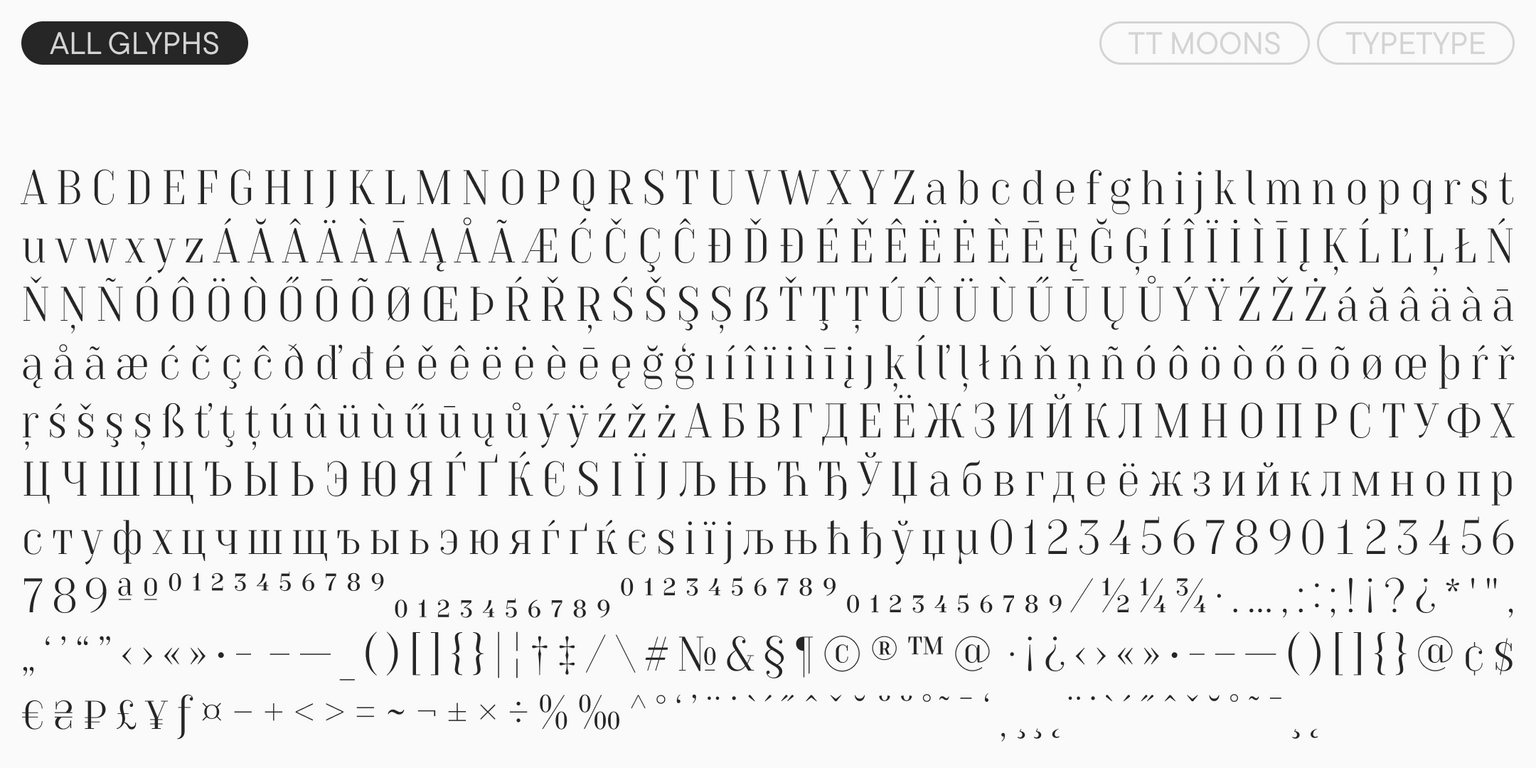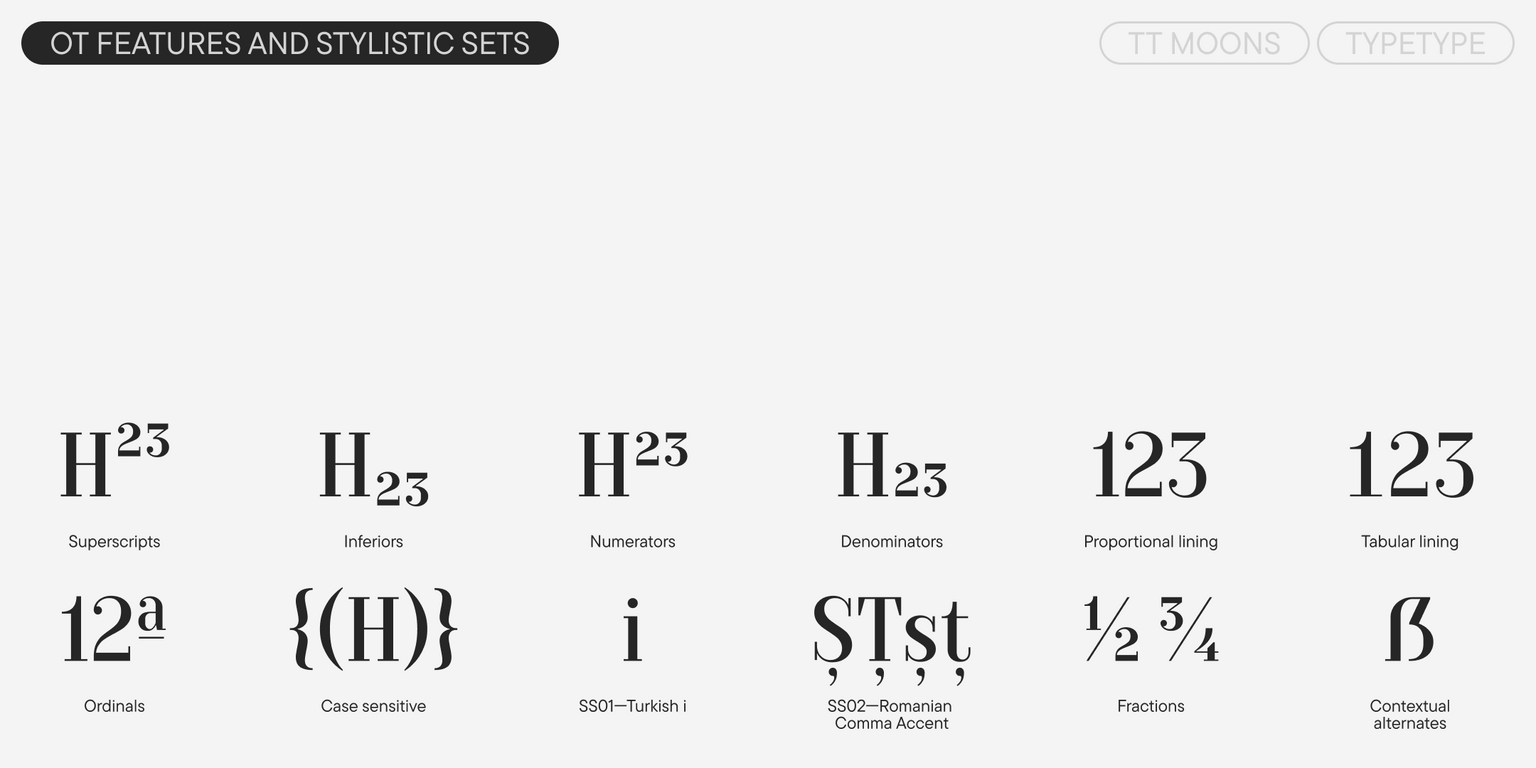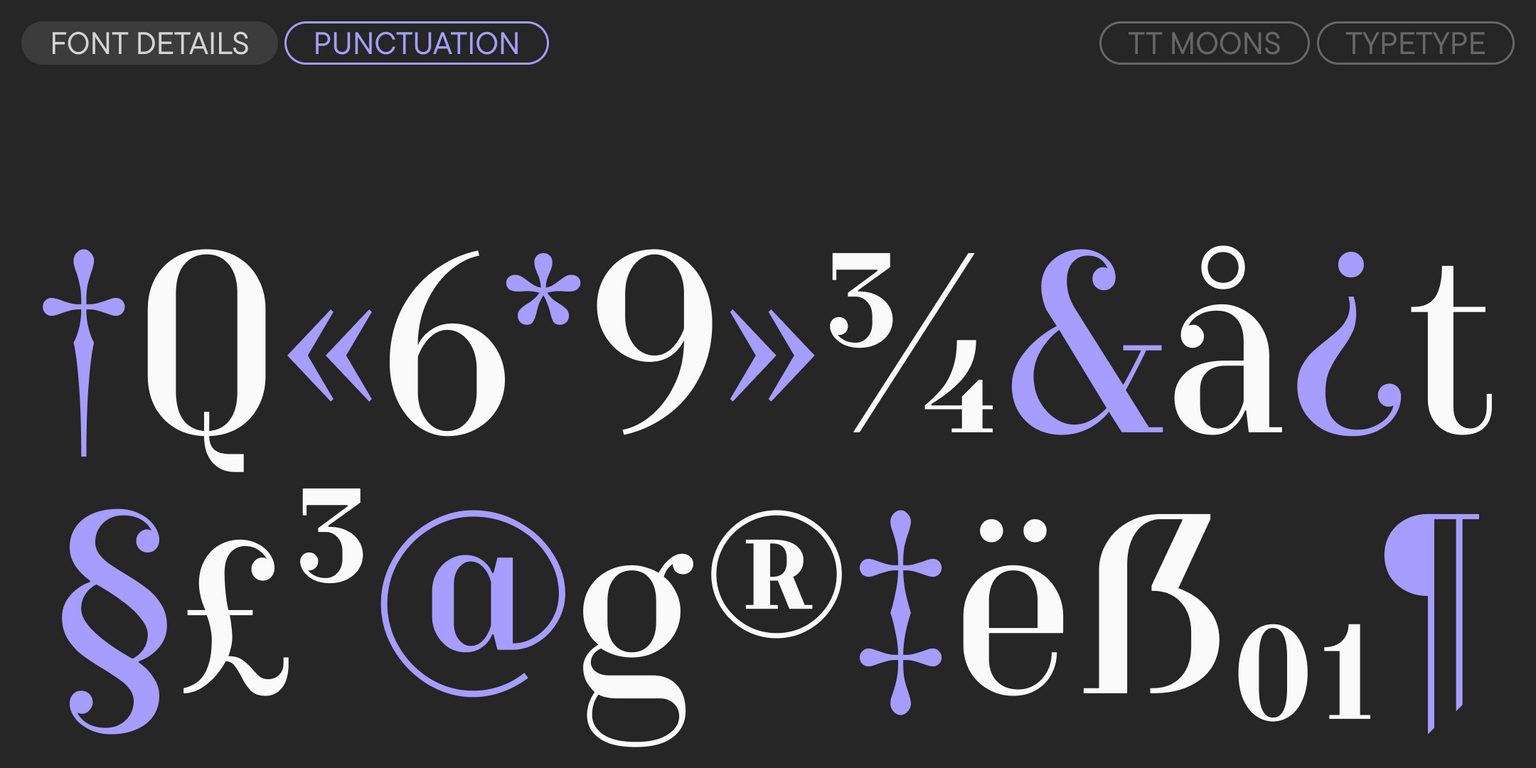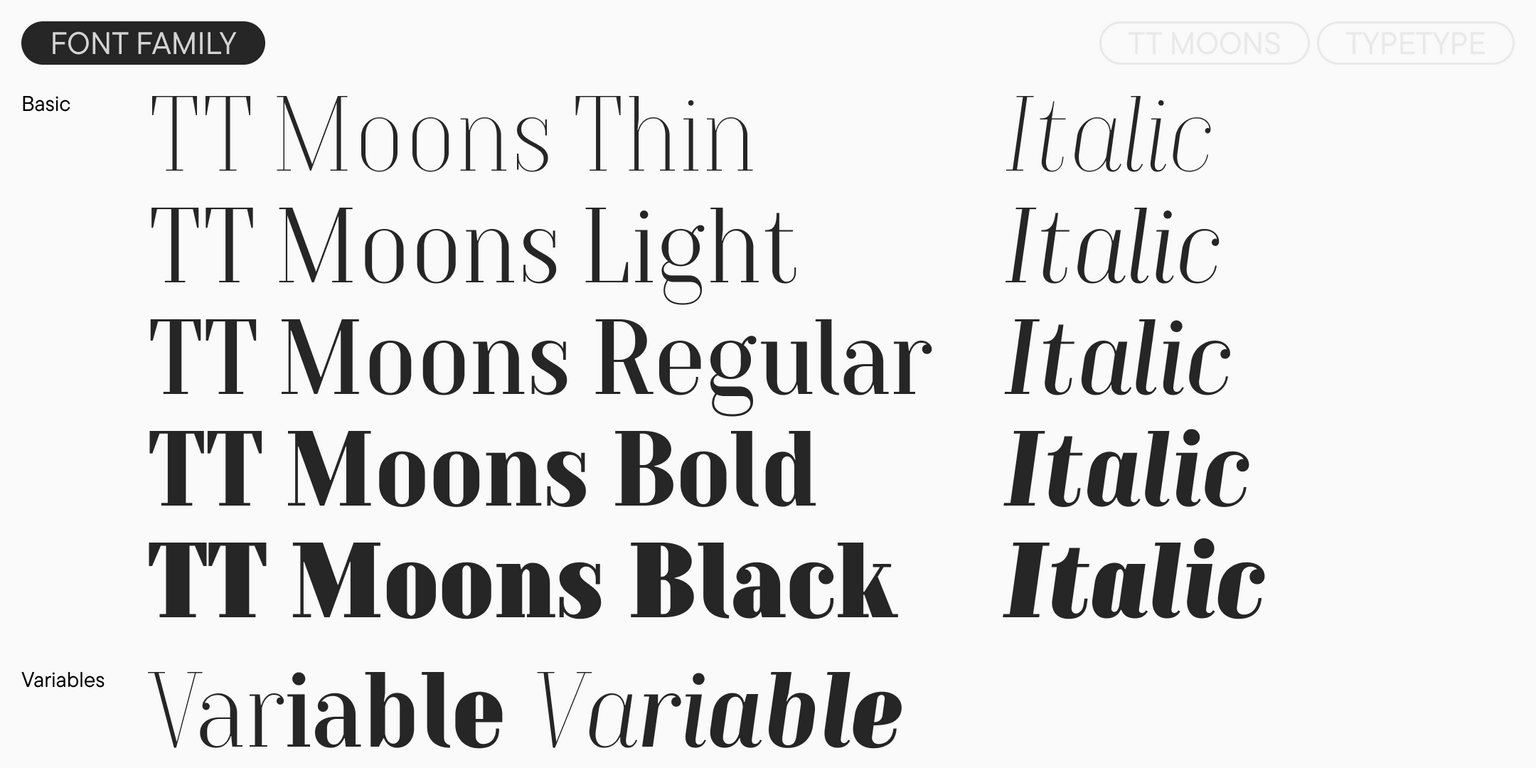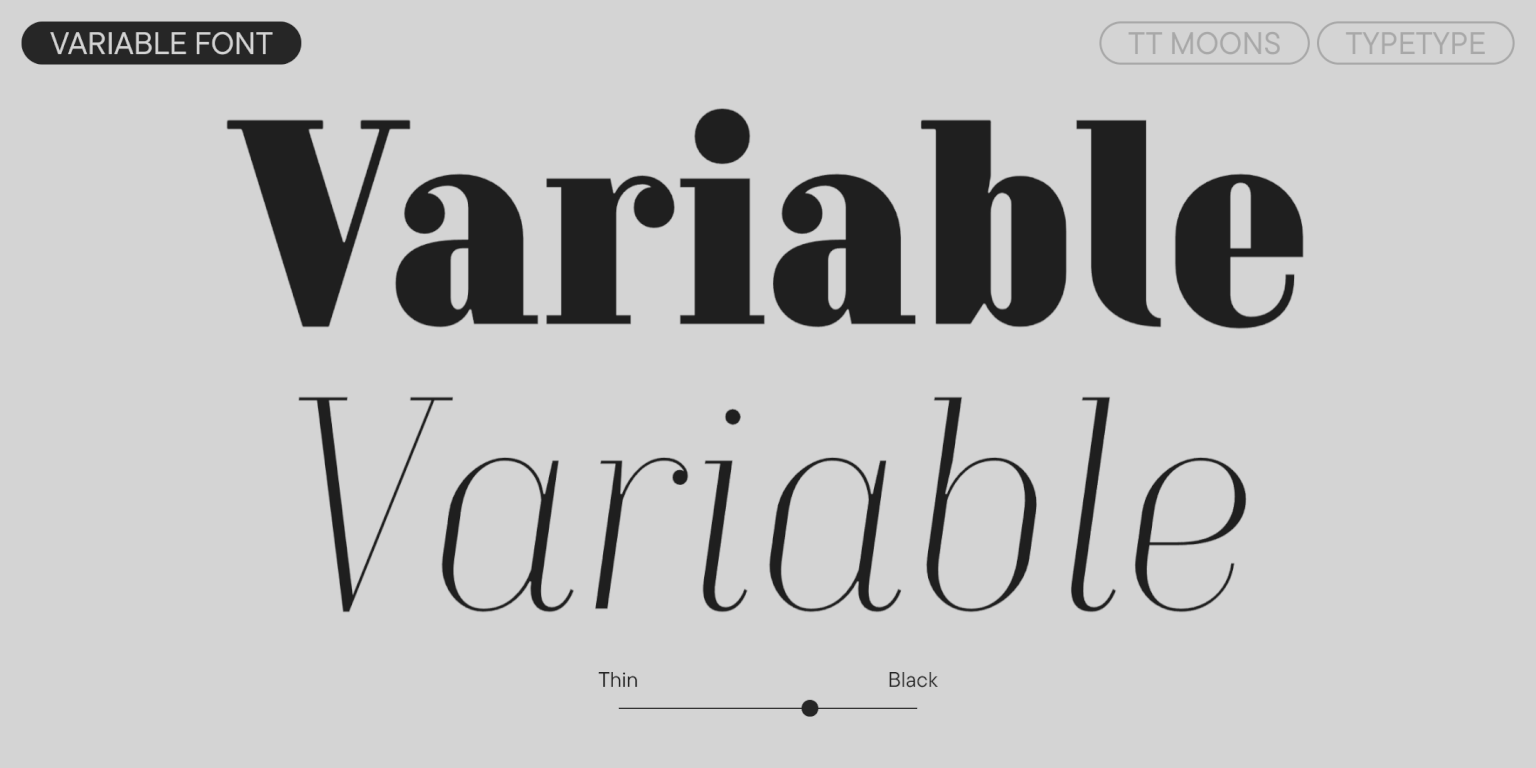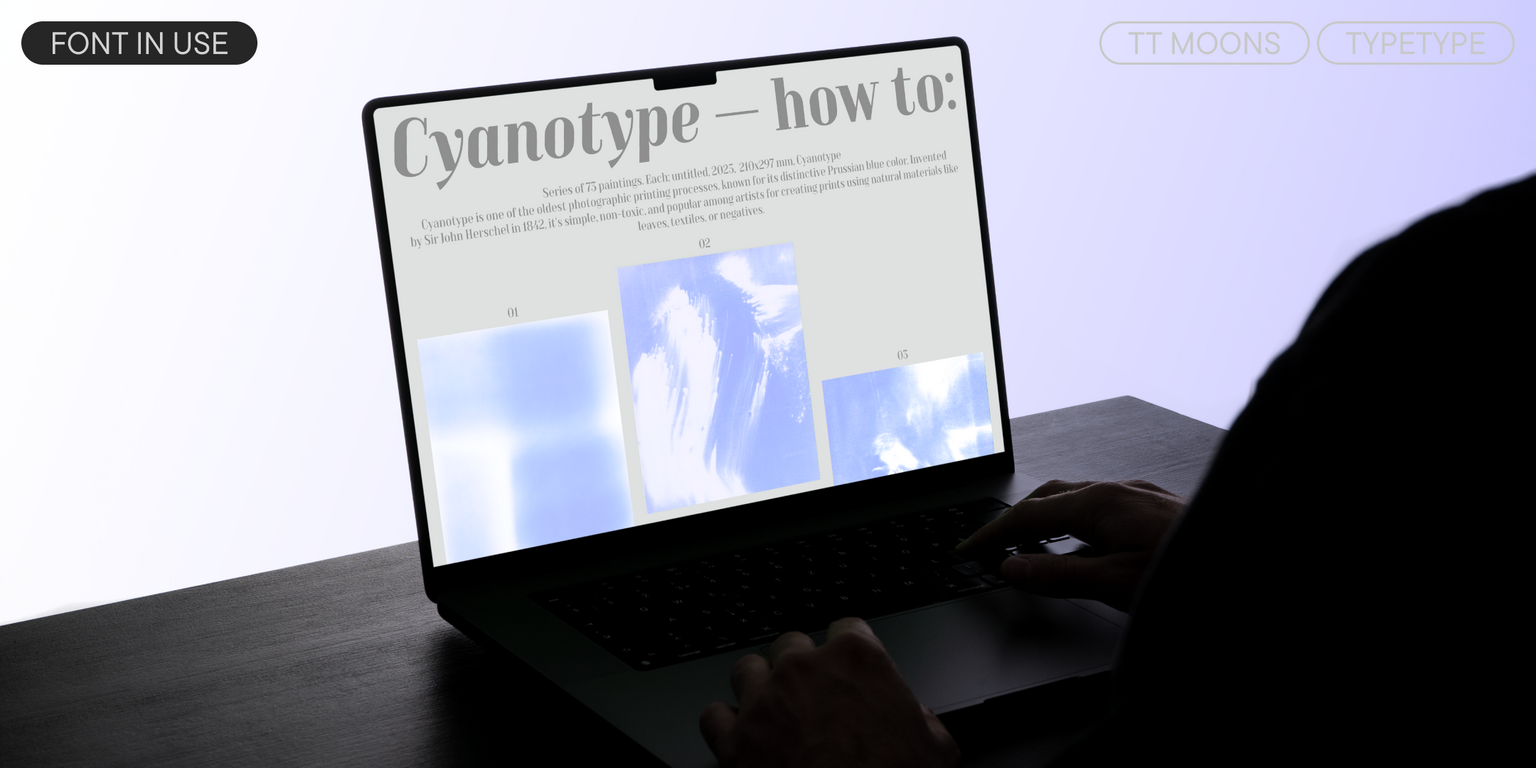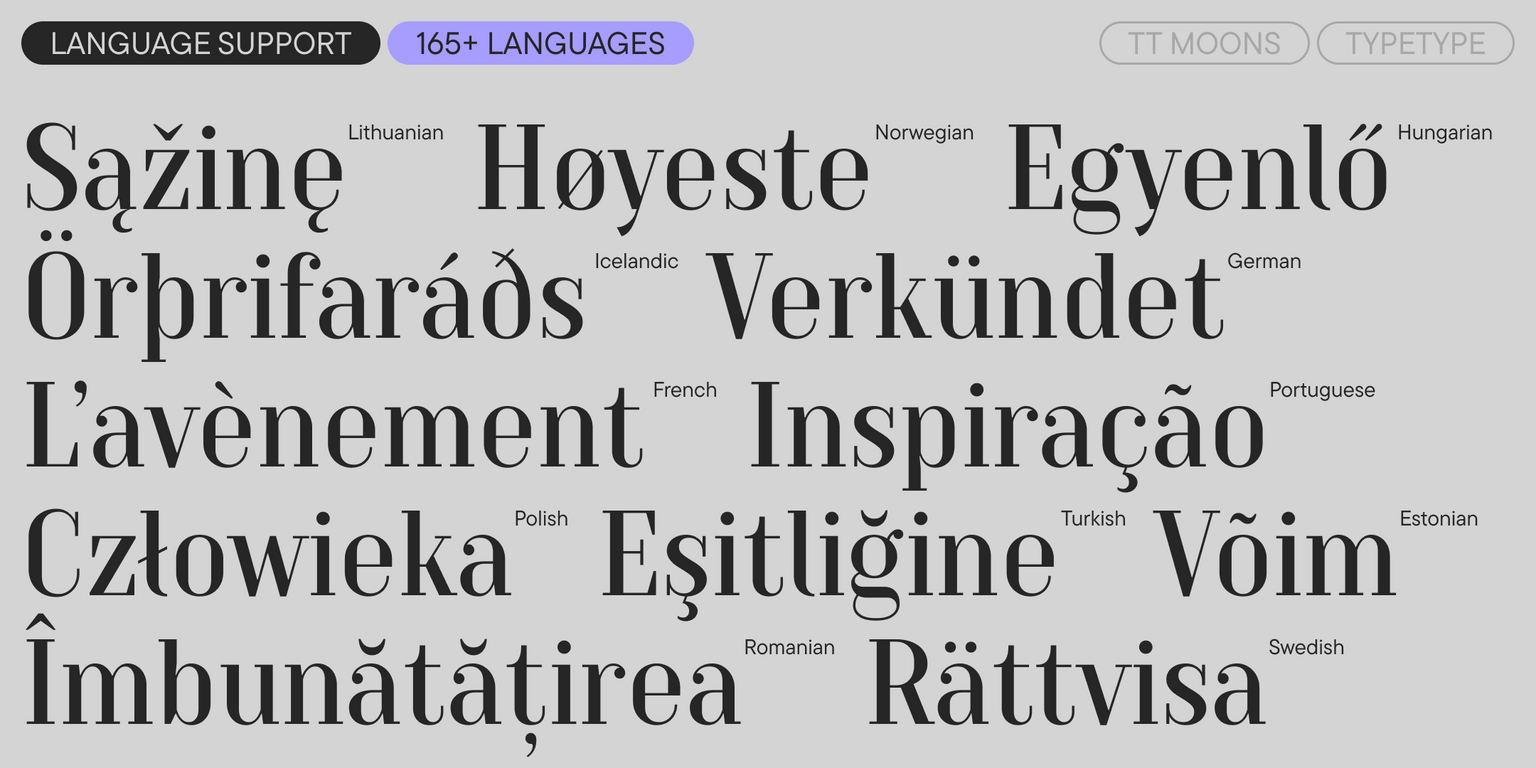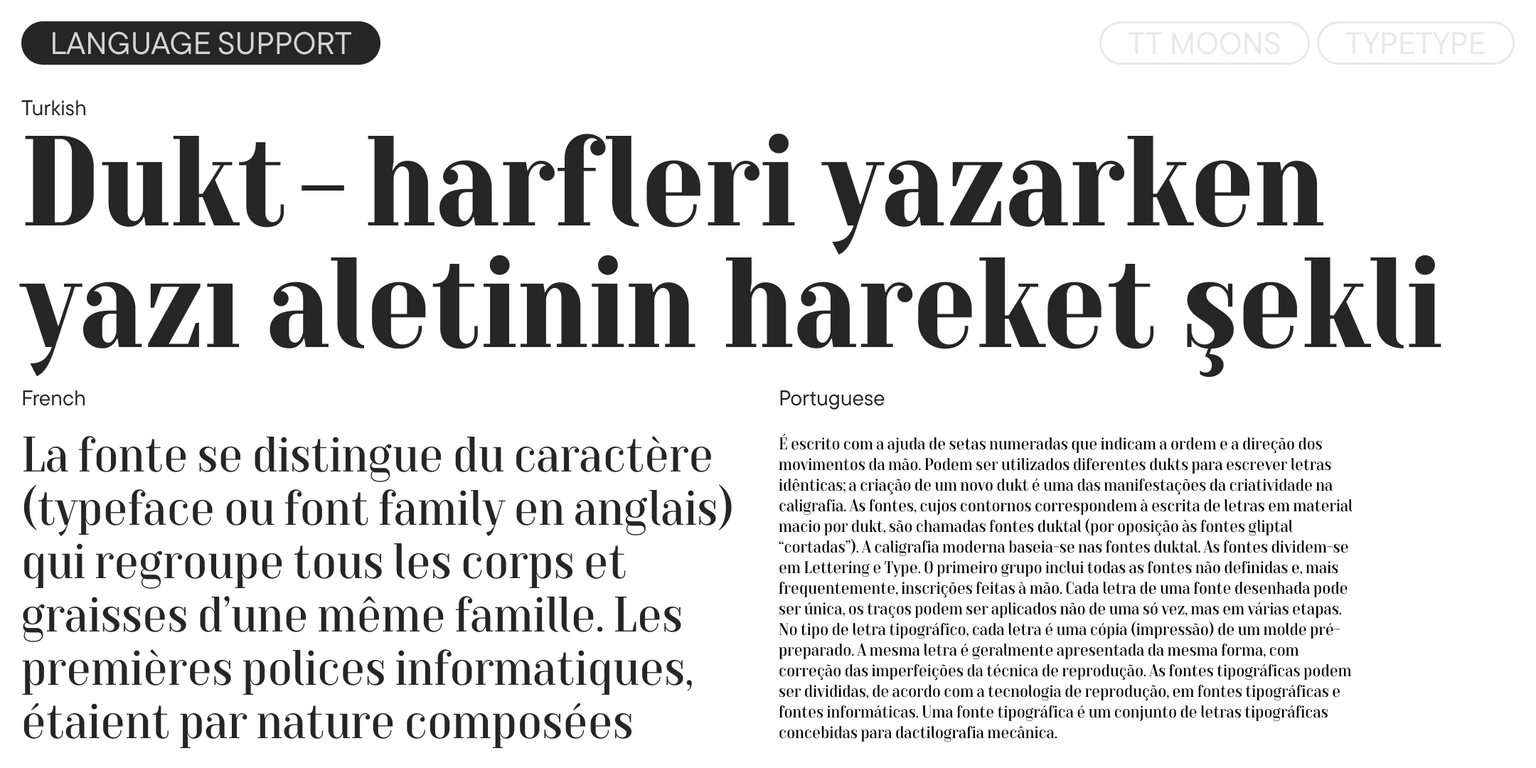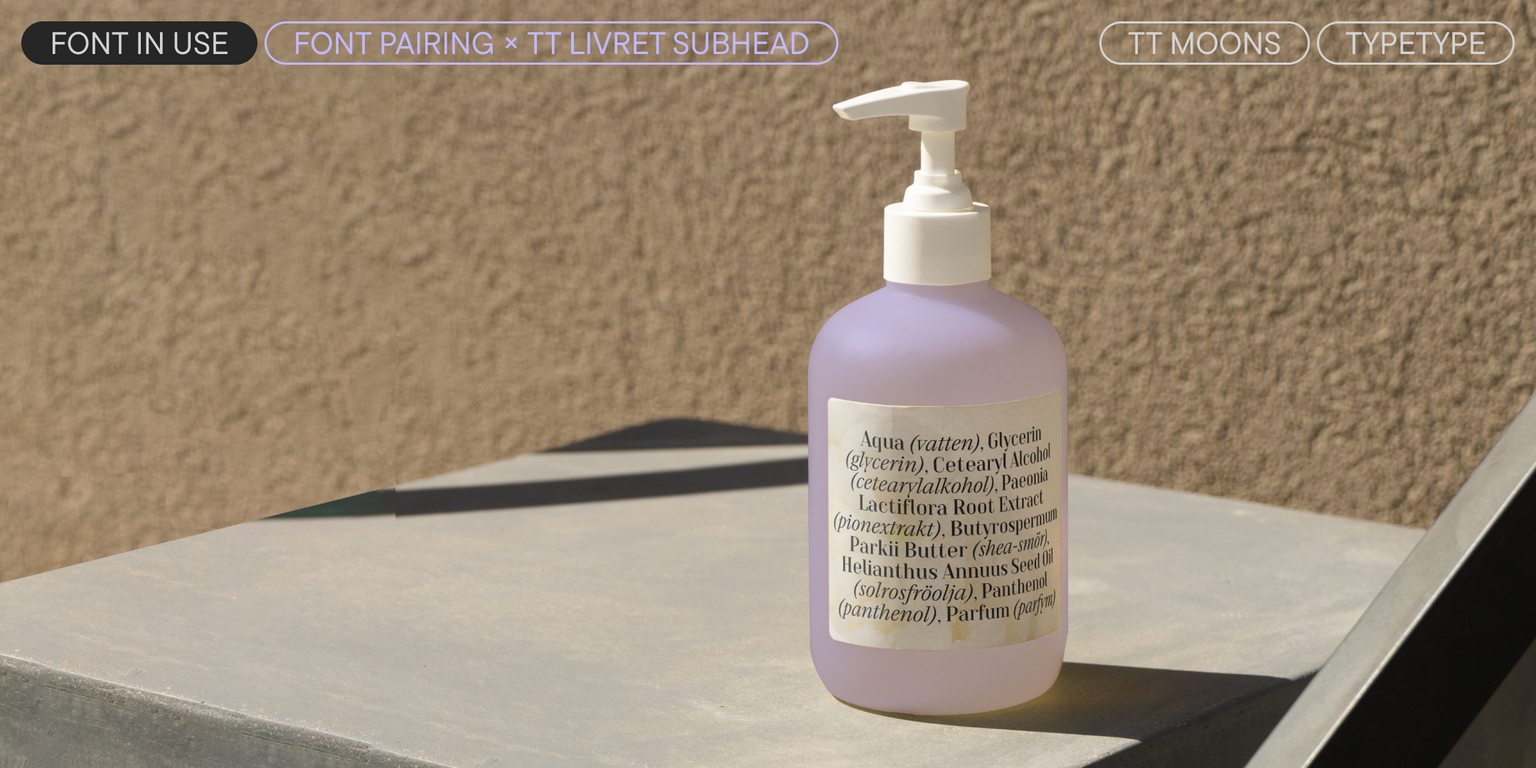
TT Moons
TT Moons is a high-contrast narrow serif ideal for editorial design in magazines, books, and newspapers.
TT Moons: Refined Modern Serif
TT Moons is a narrow, high-contrast serif that honors the tradition of glyptal modern serif fonts. With its sophisticat- ed proportions, elegant serifs, and thoughtful detailing, it creates the harmonious rhythm that quality typography demands. Its classical character makes it ideal for sophisticated text work—from literary publications and art books to upscale magazines. By balancing traditional form with contemporary refinement, TT Moons performs beautifully in both print and digital environments. The five carefully crafted weights—Thin through Black—give designers plenty of options for creating clear typographic hierarchy in their layouts. This versatility makes it equally at home in cor- porate communications, digital products, publishing, and advertising projects where timeless elegance needs to meet modern visual standards.
Ideal for: print design, interfaces, brand identity
Recently expanded with two variable fonts in 2025
Variable axes
Weight
Slant
About font family TT Moons
160+ Language support
Introducing the updated TT Moons version 1.200!
We’ve expanded the character set, made technical improvements to the font, and added new features and variable styles.
TT Moons is an elegant modern serif typeface with narrow proportions, high contrast, and a harmonious rhythm. It combines traditional forms with contemporary details. Thanks to these features, the font’s design evokes classic aesthetics while also appearing fresh and current.
OpenType features
ss01 ӏ Romanian Comma Accent
tnum | Tabular Figures
numr | Numerator
dnom | Denominator
sups | Superscript
sinf | Scientific Inferiors